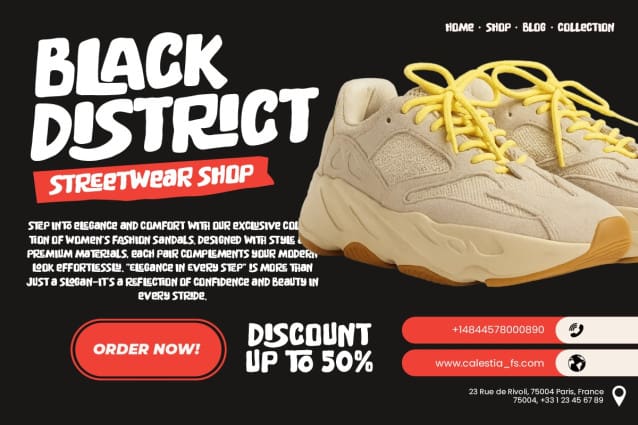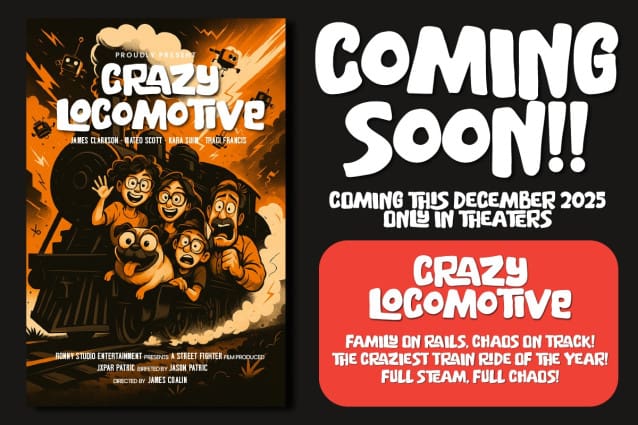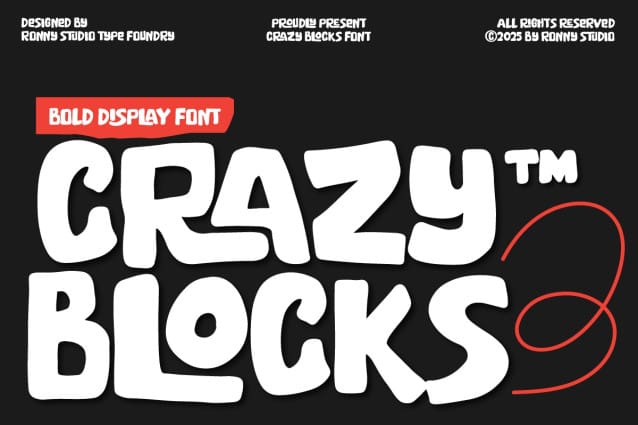
Crazy Blocks Font
Crazy Blocks Font is a bold display font with a chunky, playful, and characterful style. It’s perfect for designs that want to appear unique, strong, and eye-catching. Its quirky letterforms create a modern, retro feel that’s perfect for a variety of design needs.